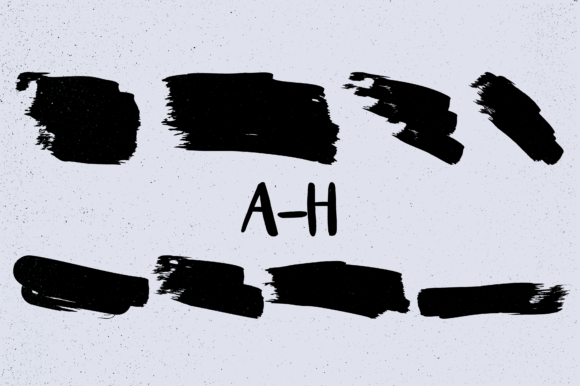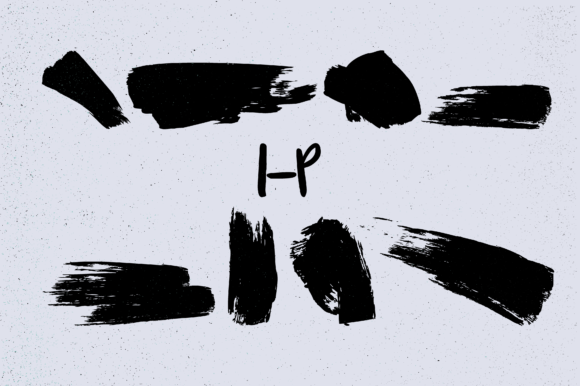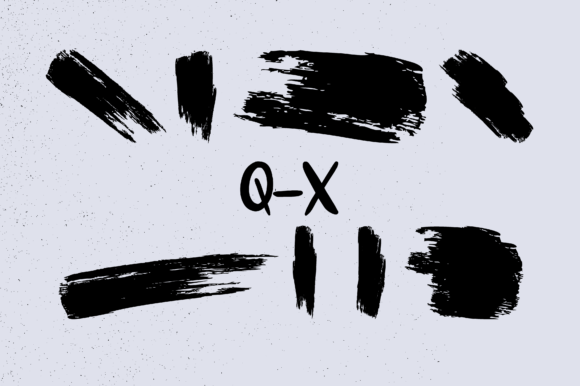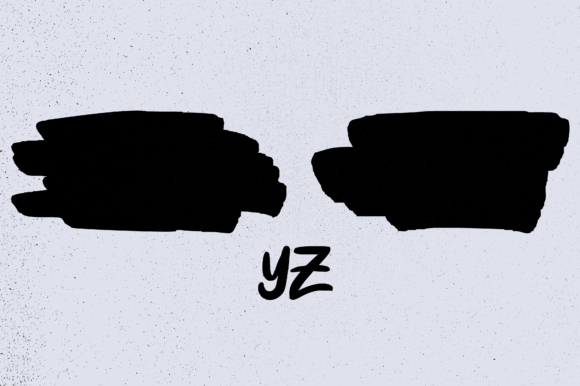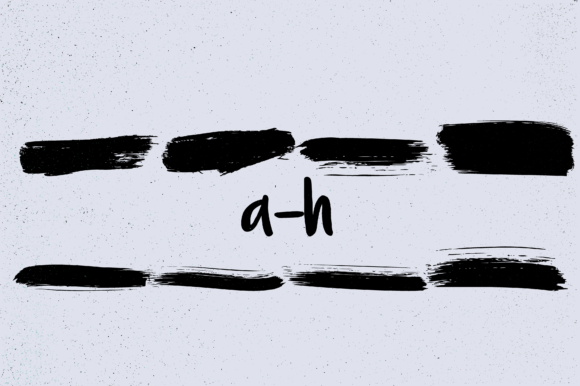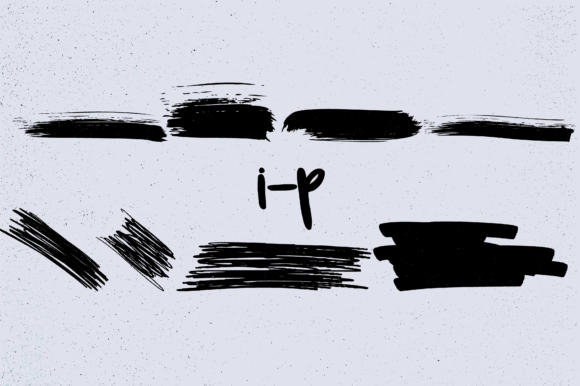
The Brushly Font: A Creative Game-Changer for Designers and Crafters
I still remember the frustration I felt when working on a project that required a unique, hand-painted look. I had spent hours scouring the internet for the perfect font, only to come up empty-handed. That’s when I stumbled upon the Brushly font, and it changed the game for me. In this article, I’ll share my experience with Brushly, its features, and how to make the most of this amazing dingbats typeface.
What is Brushly Font?
Brushly is a dingbats typeface designed to help you generate paint and ink brushes and markers by typing different letters, numbers, and punctuation. It’s a versatile font that can be used for a wide range of creative projects, from crafting and scrapbooking to graphic design and illustration.
My Honest Review of Brushly
Here’s what I love about Brushly:
- ✨ Variety of brush styles: Brushly offers a wide range of brush styles, from subtle and realistic to bold and playful.
- 💡 Inspirational: Brushly’s unique brush styles can inspire new ideas and creativity in your projects.
However, I did notice a few small quirks:
- 🤔 Limited character set: While Brushly has a wide range of brush styles, the character set is limited to letters, numbers, and punctuation.
- ⚠️ Requires OpenType features: To get the most out of Brushly, you’ll need to use it with software that supports OpenType features, such as Adobe Creative Cloud.
Brushly font takes advantage of OpenType features, which allow you to access additional glyphs and stylistic alternates. To access these features, you’ll need to use software that supports OpenType, such as Adobe Creative Cloud. In Adobe Photoshop or Illustrator, you can access the Glyphs panel by going to Window > Glyphs. From there, you can browse through the available glyphs and alternates, and insert them into your text.
The Story Behind Brushly
Brushly was designed with creatives in mind. The designer wanted to create a font that would allow users to add a personal touch to their projects, without requiring extensive design experience. The result is a font that’s both easy to use and highly versatile.